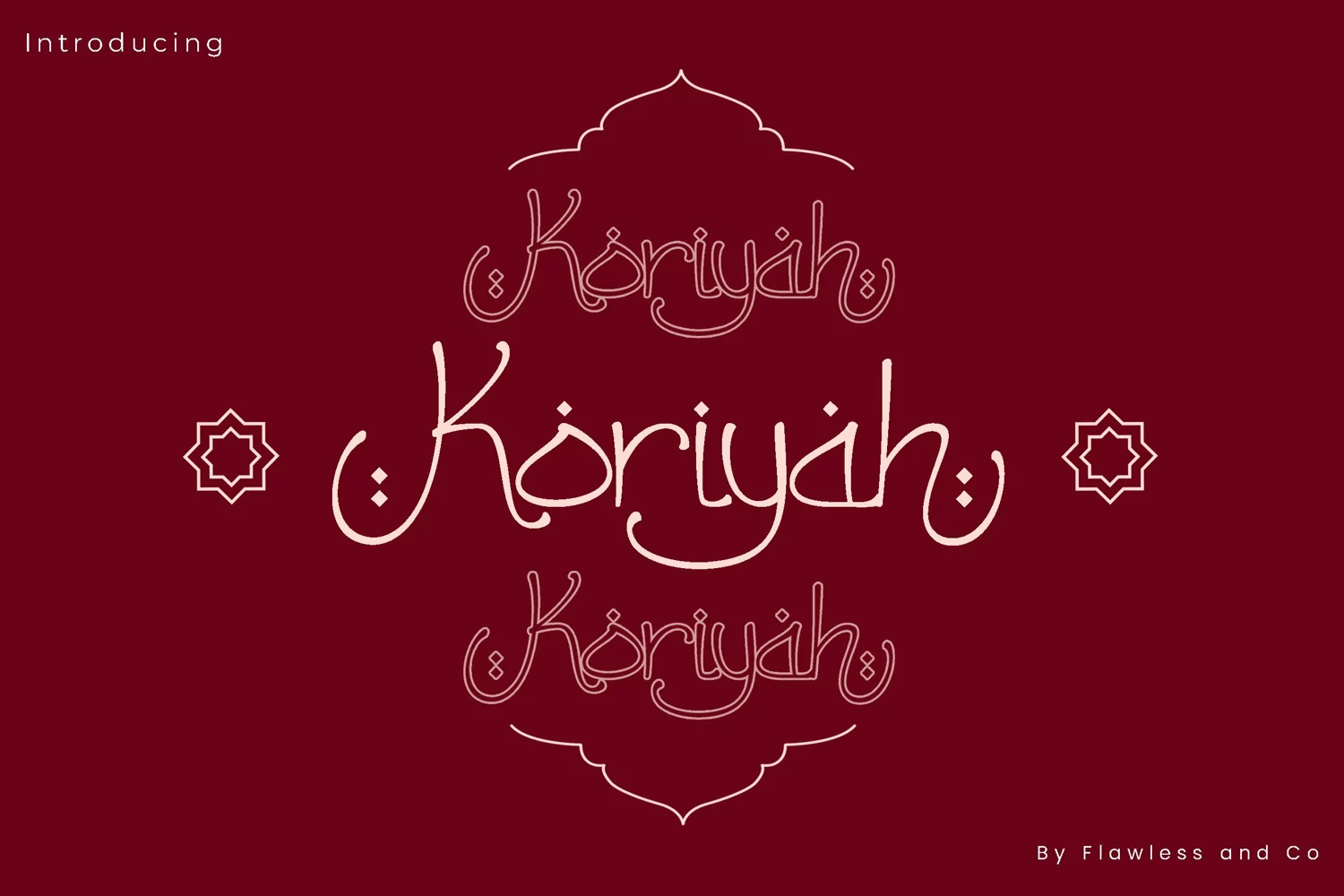
Koriyah
Introducing Koriyah, a stunning Arabic font that combines elegance with modernity. With its captivating design and exquisite details, Koriyah is sure to make a lasting impression on your audience.
This font support for some multilingual. Modern Sweet Retro that contains uppercase A-Z and lowercase a-z, alternate character, numbers 0-9, and some punctuation.